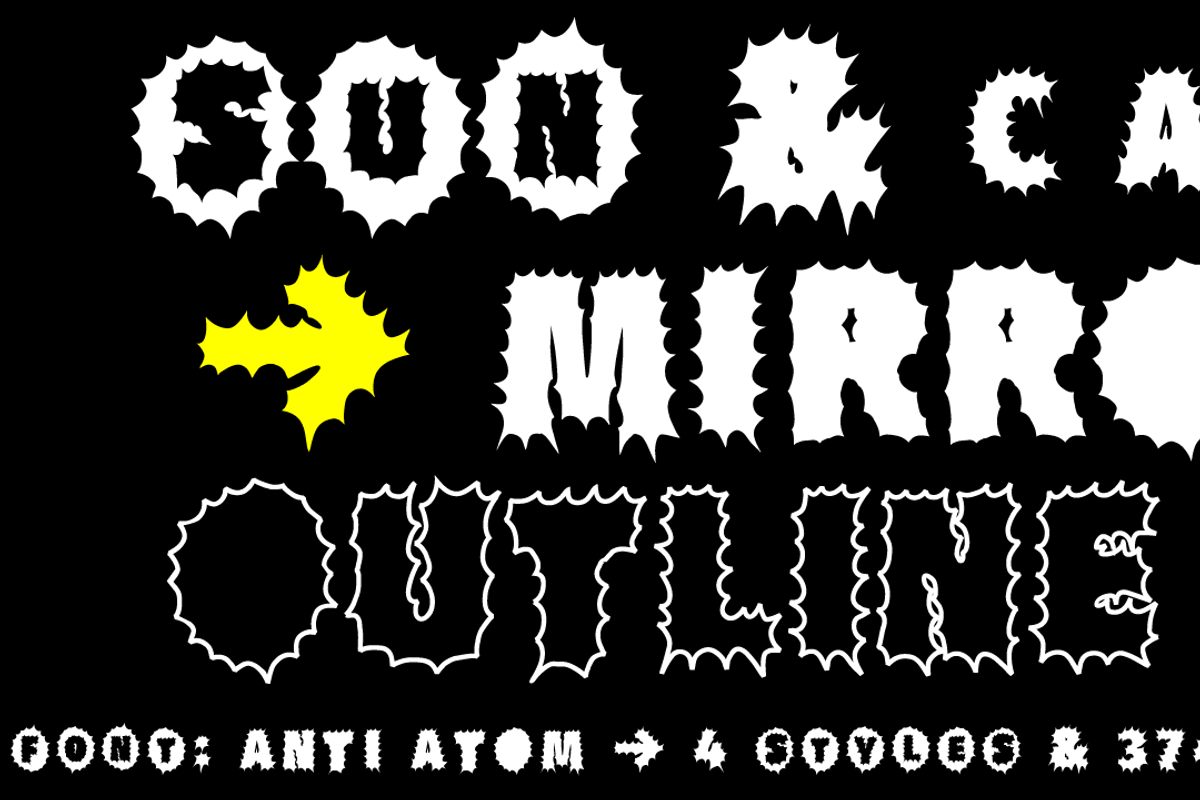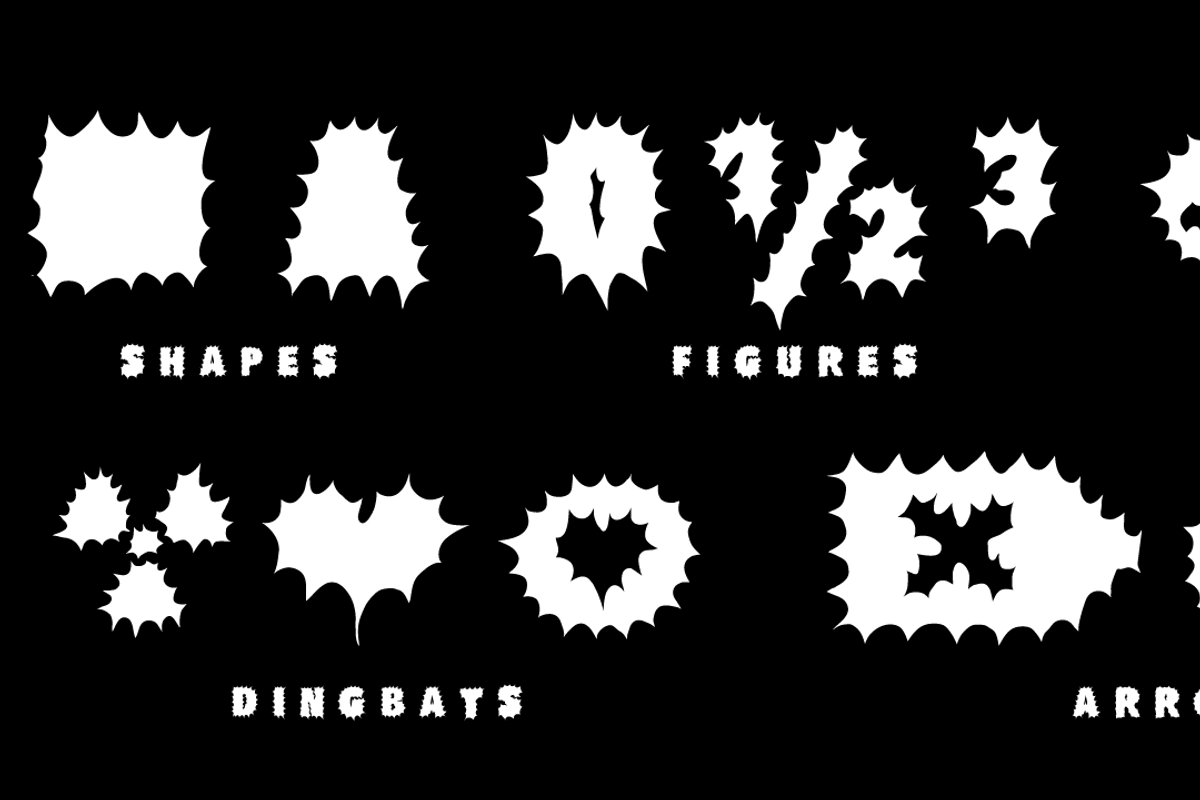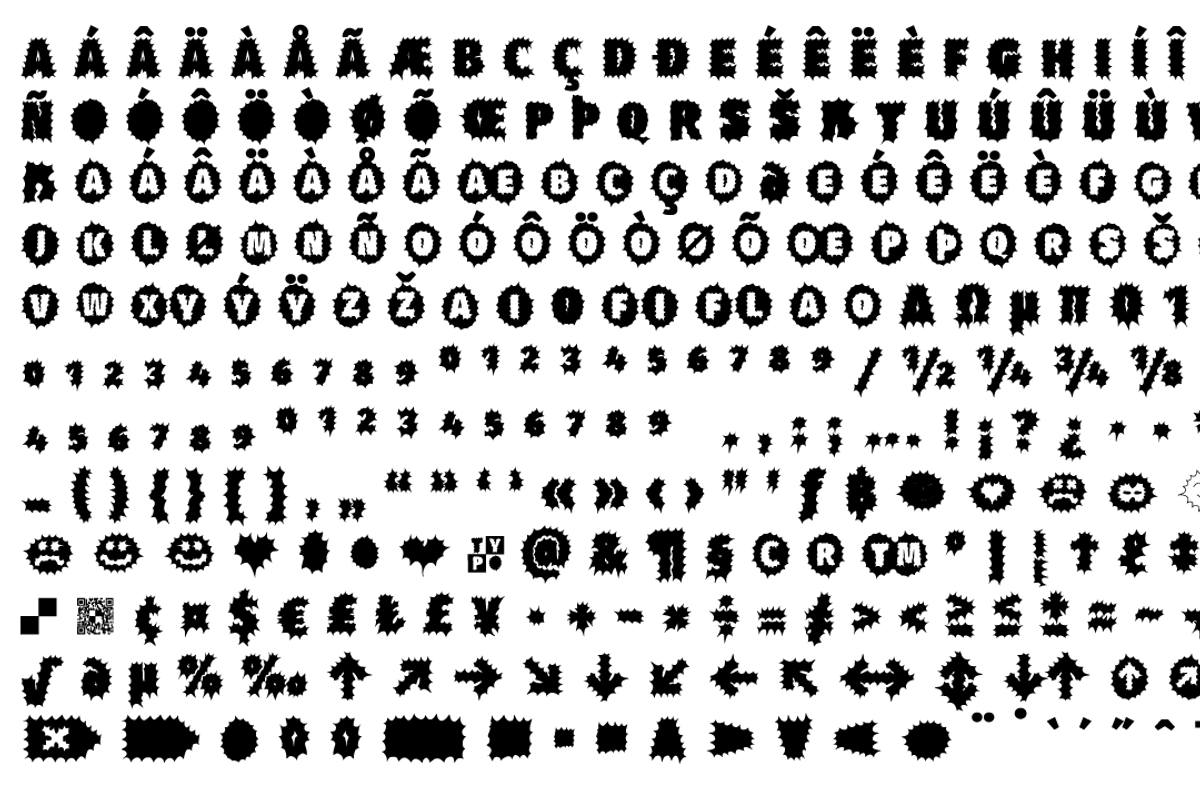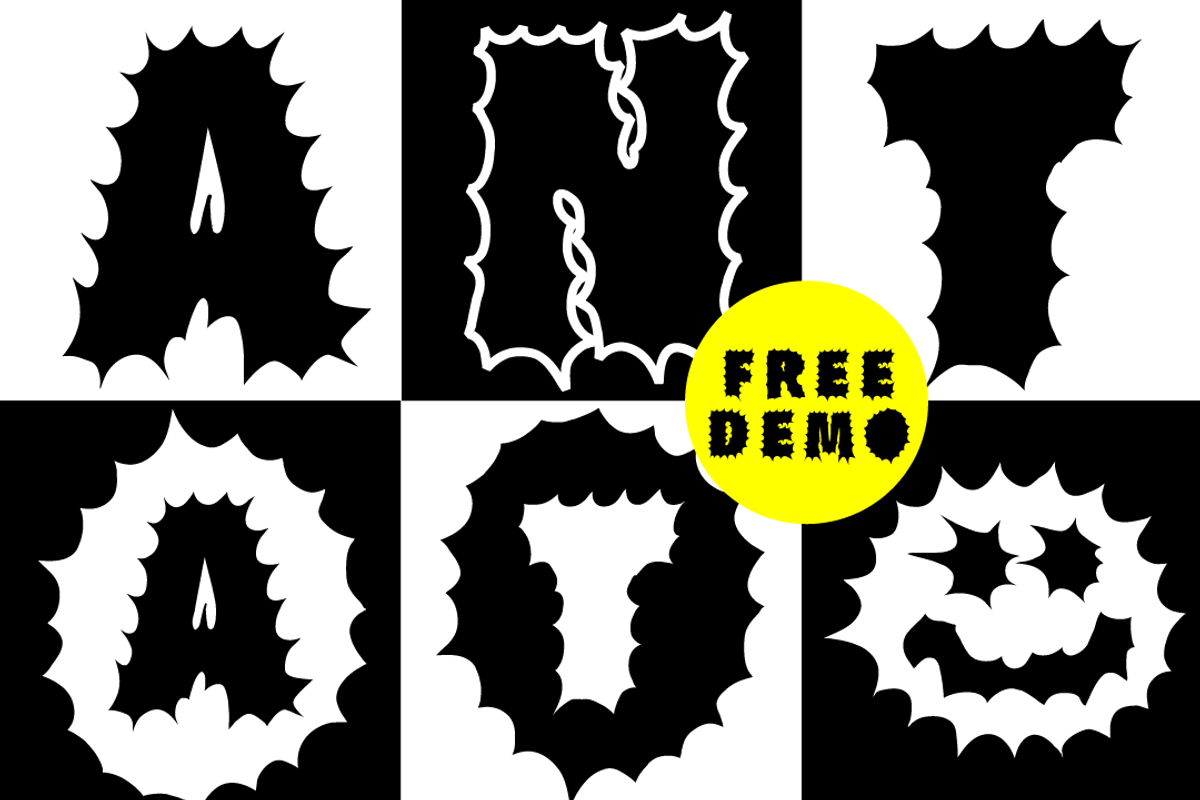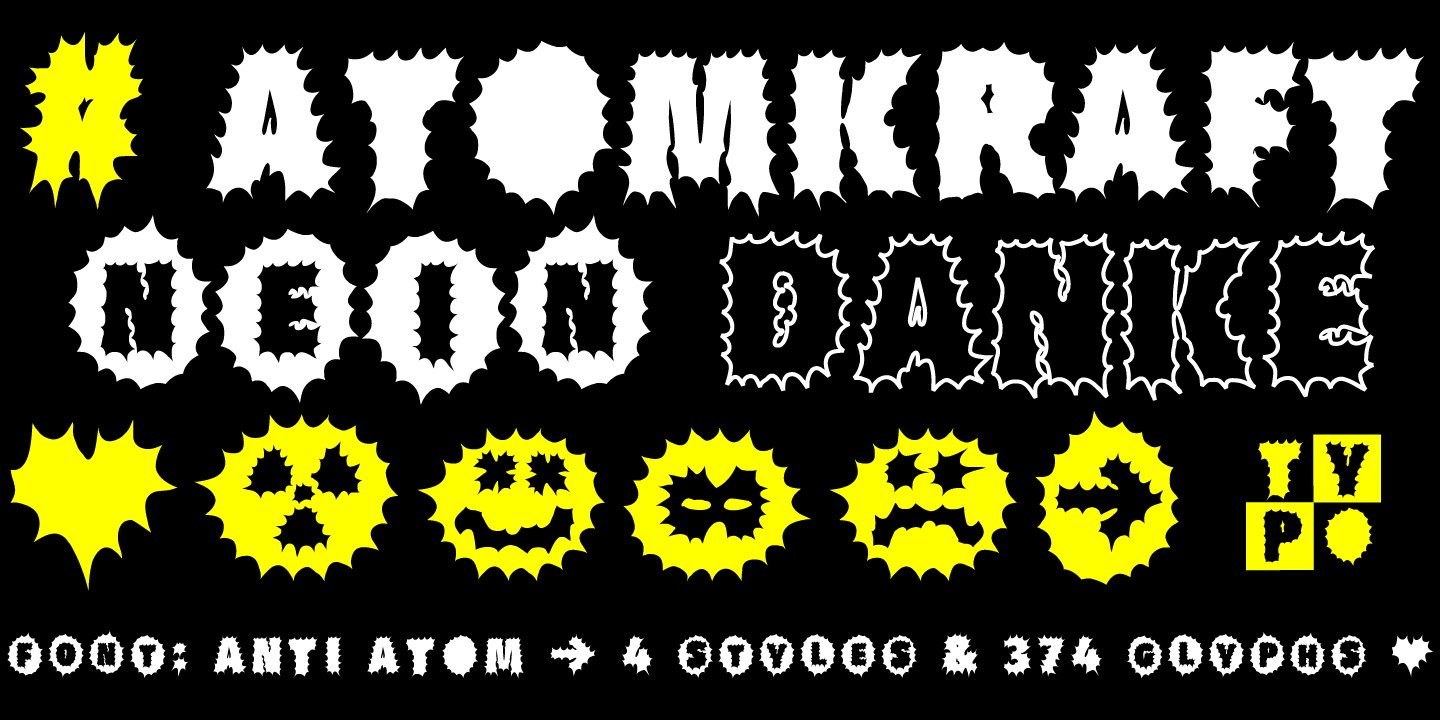
FONT | Anti Atom Font
The typeface Anti Atom is designed from 2021 for the font foundry Typo Graphic Design by Manuel Viergutz as a political statement #antiatom #atomkraftneindanke
The display font based on the original Anti Atom Sonne from Anne Lund. Thanks to Stefan Bergmeier for the Input.
4 font-styles (Sun, Cap, Mirror, Outline) with 375 glyphs (Adobe Latin 2) incl. 100+ decorative extras like icons, arrows, dingbats, emojis, symbols, geometric shapes (type the word #LOVE for ❤ or #SMILE for ☺ as OpenType-Feature dlig) and stylistic alternates (3 stylistic sets).
For use in logos, magazines, posters, advertisement plus as webfont for decorative headlines. The font works best for display size.